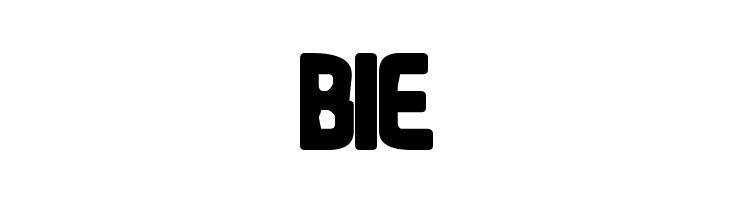
An elegant script font with flowing, interconnected characters and graceful curves.
A bold, extruded font with a strong, decorative style.
A bold, three-dimensional font with an extruded shadow effect, perfect for impactful designs.
A bold, playful font with thick strokes and a dynamic style.
A playful, handwritten font with a dynamic and casual style.
A decorative font with characters shaped like rifles, offering a bold, thematic style.
A playful, rounded handwritten font with a casual and friendly style.
A bold, hand-drawn font with dynamic, uneven strokes.
A bold, geometric font with a modern and futuristic design.
A bold, italic font with angular lines and diagonal stripes, exuding a futuristic and dynamic style.
A bold, 3D font with a dotted texture and retro-futuristic style.
A playful, casual handwritten font with smooth, flowing lines.
A bold, playful font with thick, rounded strokes and a cartoonish style.
A dynamic, fluid handwritten font with smooth, flowing strokes.
A bold, decorative script font with flowing curves and elegant swashes.
A bold, futuristic font with sharp, angular lines and a geometric structure.
A bold, geometric font with a futuristic and edgy style.
A graceful, handwritten script font with elegant curves and fluid connections.
A playful, handwritten font with smooth curves and a casual style.
A whimsical, cursive font with elegant curves and artistic flair.
A flowing, cursive font with elegant, sweeping strokes and a romantic appearance.
A romantic and elegant script font with flowing, cursive letterforms.
An elegant, cursive font with romantic loops and swirls.
A classic serif font with elegant curves and high contrast strokes.
A lively script font with fluid, cursive letterforms and a handwritten appearance.
A modern, elegant script font with flowing, cursive strokes and dynamic contrast.
A bold, dynamic script font with interconnected, flowing characters.
A modern, elegant script font with flowing, cursive letters and graceful curves.
A bold, elegant script font with flowing, cursive letterforms.
A hand-drawn, artistic font with a bold, textured appearance.
An intricate and decorative blackletter-inspired font with modern elements.
A bold, geometric font with outlined characters and a playful, modern style.